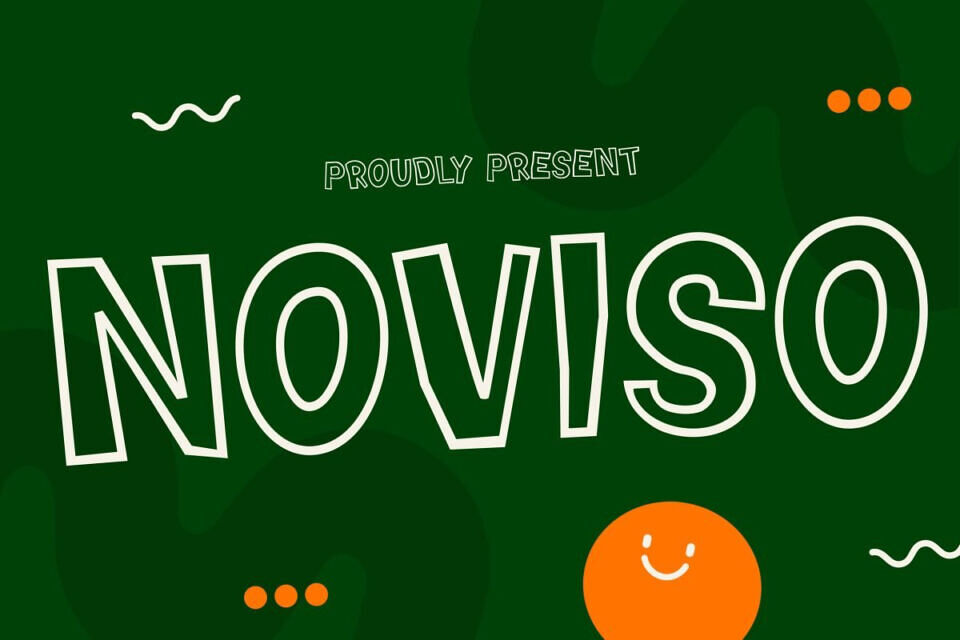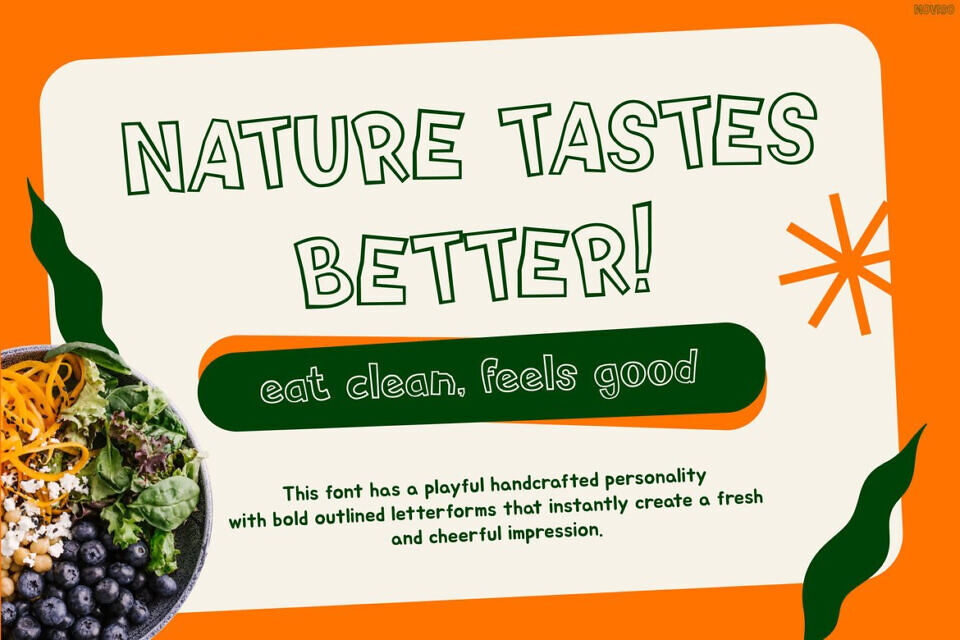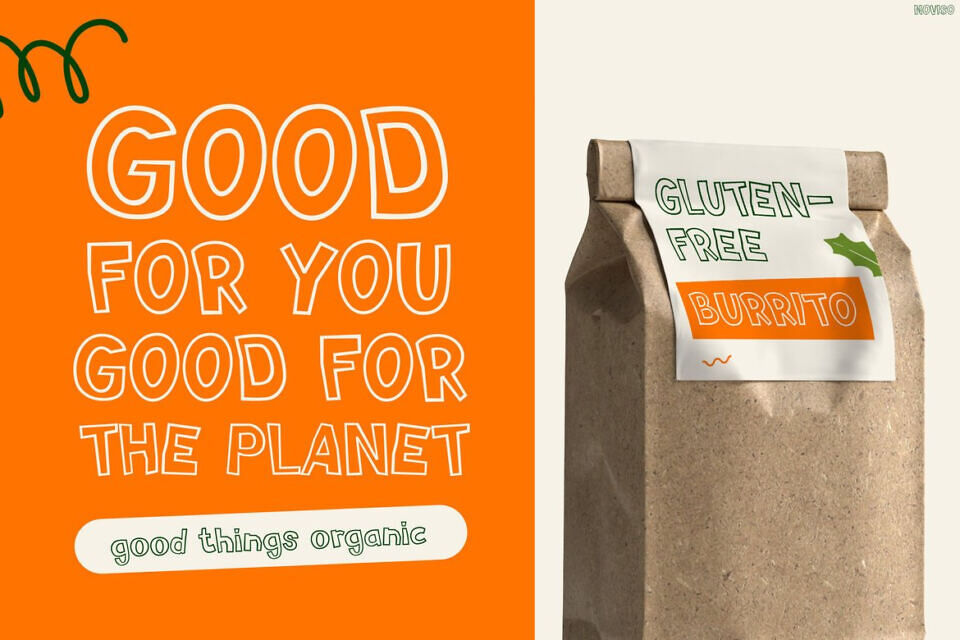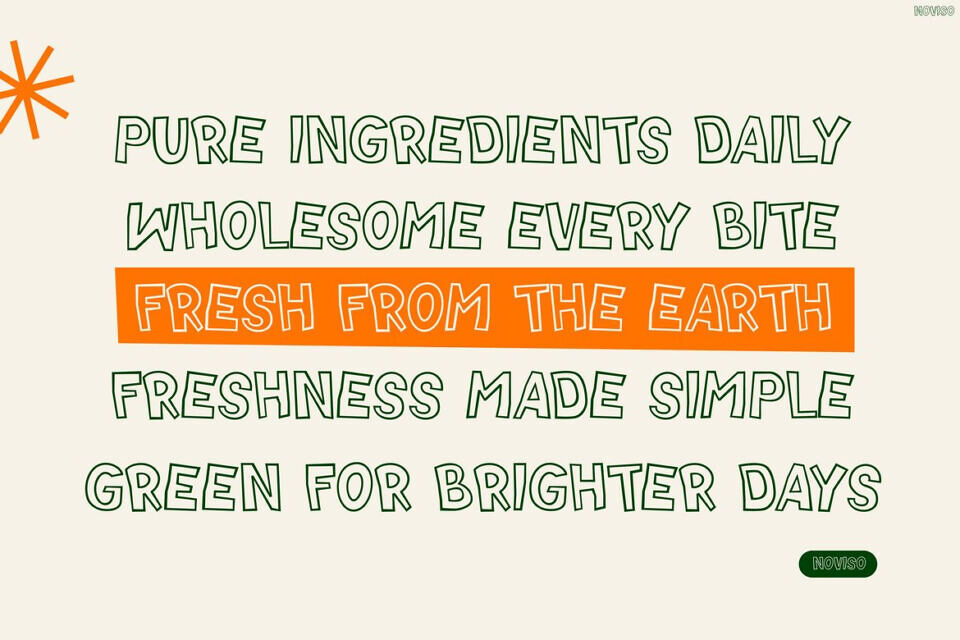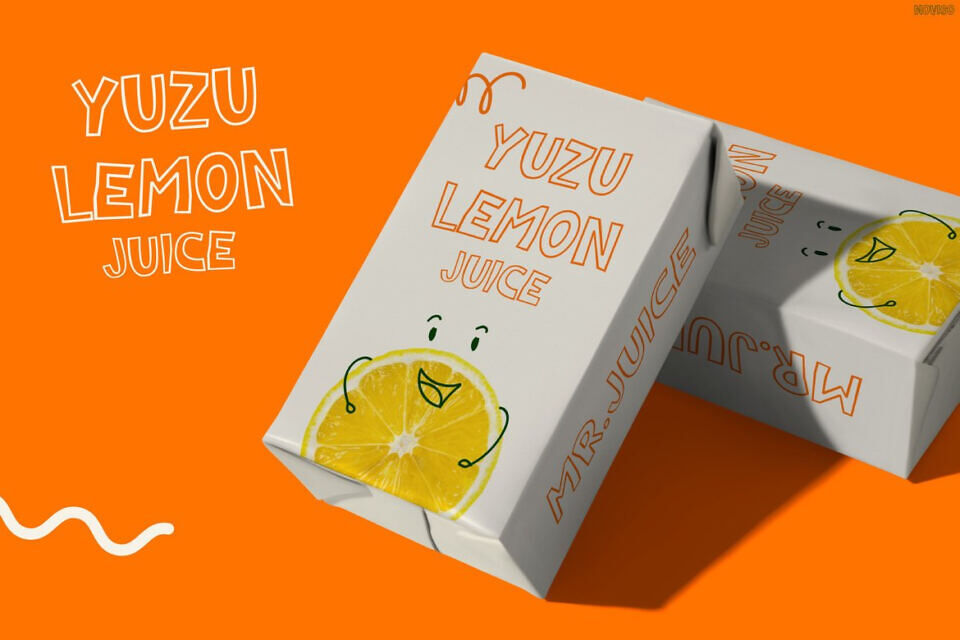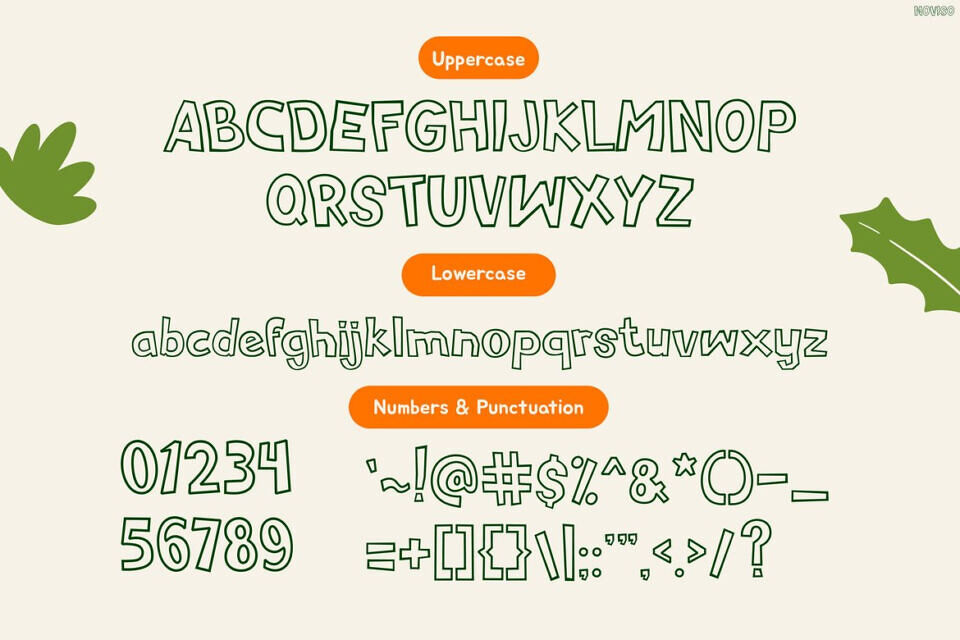
Noviso is a vibrant display font that injects a playful, organic feel into designs. Its chunky, hand-drawn letters and natural aesthetic create a cheerful atmosphere. The unique shapes make headlines expressive and modern, while the bold typography remains highly readable.
Noviso’s playful style suits kids’ packaging, café promotions, and social media content, adding a warm and friendly touch to branding that audiences love. Its dynamic outline structure makes layouts memorable, perfect for digital and print projects.